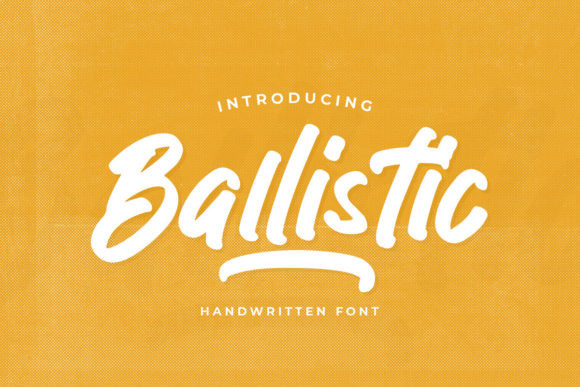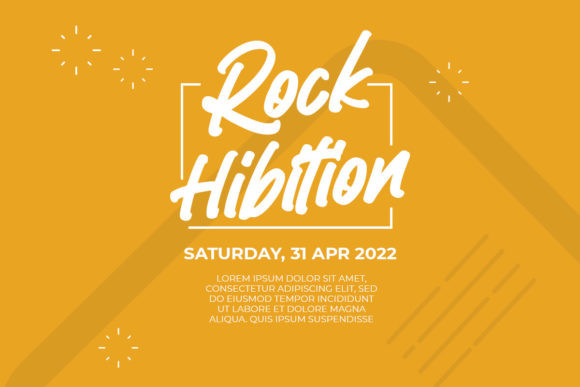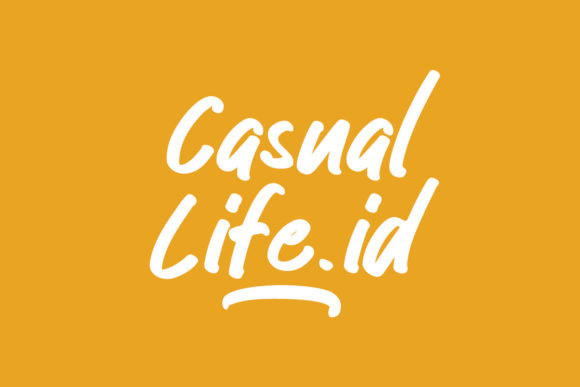
Ballistic Font
Ballistic is a cool, paint brushed handwritten font. Whatever the topic, this font will be a wonderful asset to your font library, as it has the potential to enhance any creation.